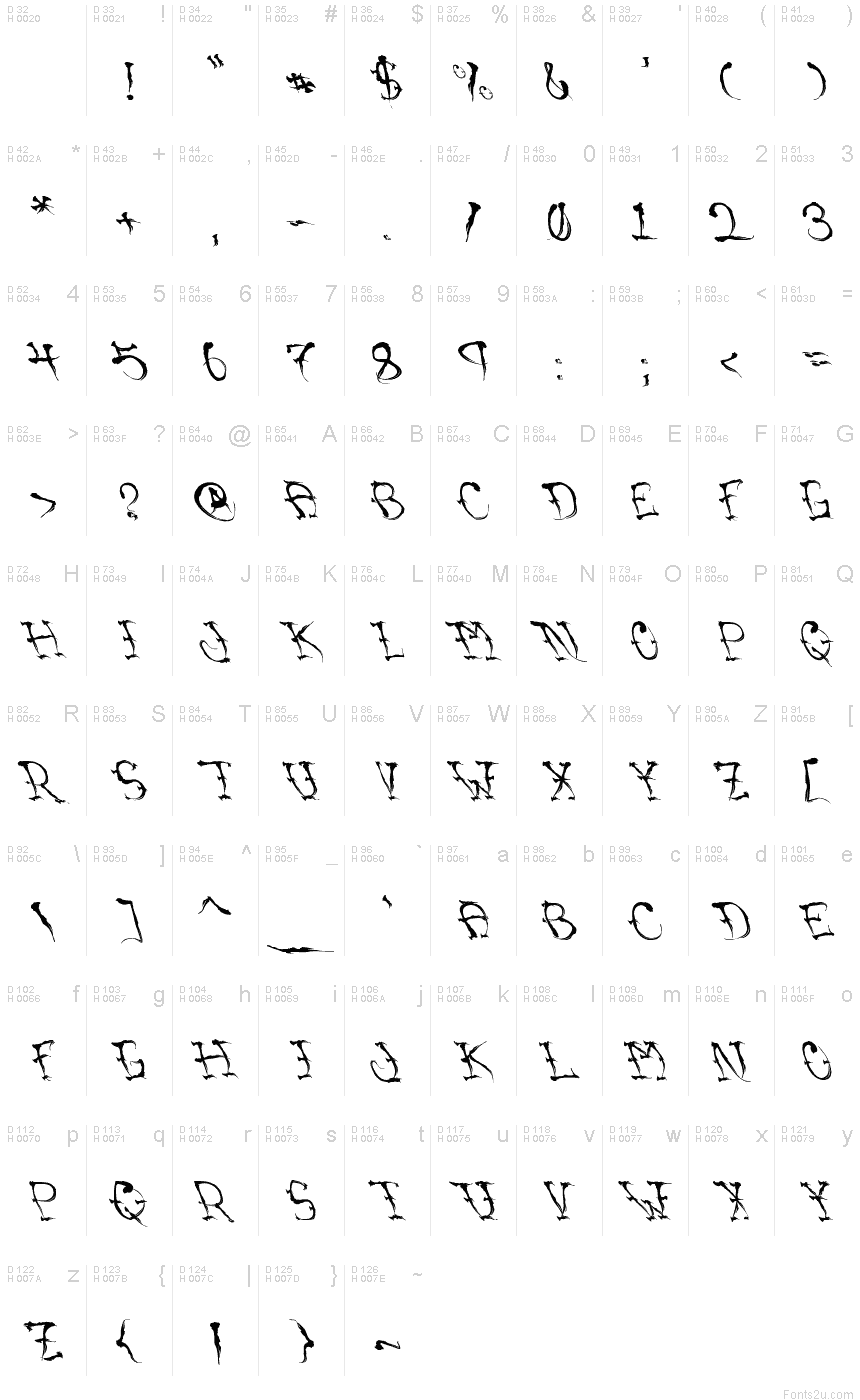
VTC Sumi Slasher One Punch Drunk by Larry E. Yerkes is a free trash display font built from ragged strokes, thorn-like hooks, and sharp breaks that make the lettering resemble splintered wood, torn paper, or damaged ink marks. The uneven outlines keep every form raw and restless.
As a distressed title treatment, it can turn horror posters, metal album packaging, and dark game graphics into part of the artwork rather than ordinary lettering. The thorned silhouette also suits haunted event signage and fantasy merchandise aimed at audiences drawn to abrasive, hand-damaged type with a grim underground edge.